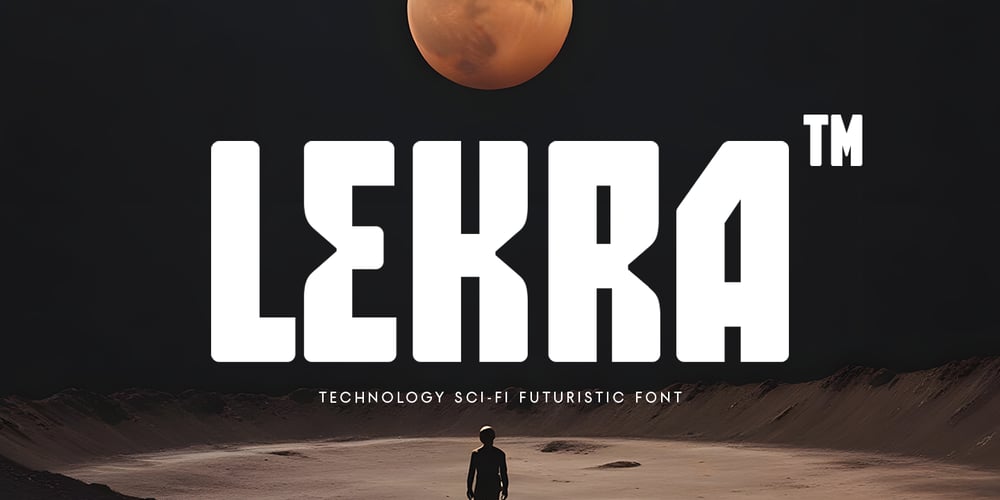
Lekra SS
Lekra SS font
Lekra SS Font Family was designed by Zamroni Hamzah and published by Sensatype Studio. Lekra SS contains 2 styles and family package options. Introducing Lekra SS, a cutting-edge font designed to blend the worlds of technology, sci-fi, and futuristic aesthetics. Perfect for modern projects and innovative designs, Lekra SS brings a sleek and digital touch to your creative work.The Story Behind Lekra SS:Lekra SS was inspired by the rapid advancements in technology and the ever-evolving world of sci-fi. Imagine a future where digital interfaces and sleek designs are the norm, where every element is crafted with precision and style. This font captures that vision, offering a modern and futuristic look for your projects. Lekra SS is ideal for designers who want to push the boundaries and explore new frontiers in their work.Lekra SS Font Features: Modern Design: Contemporary and stylish, perfect for futuristic projects. Sci-fi Aesthetic: Sleek lines and sharp angles that evoke a sense of innovation and advanced technology. Versatile Usage: Ideal for logos, branding, headlines, posters, and tech-related designs. Multiple Formats: Available in 4 formats for all your design needs. High Legibility: Clear and sharp, ensuring your message is communicated effectively. Futuristic Appeal: Combines modern style with a vision of the future. Inspirational Previews: Includes sample designs to spark your creativity. Perfect For: Tech Branding: Create sleek and memorable logos for tech companies and startups. Futuristic Designs: Design eye-catching posters, flyers, and promotional materials with a sci-fi twist. Professional Materials: Develop modern and stylish business cards, letterheads, and office stationery. Marketing and Advertising: Enhance brochures, advertisements, and digital campaigns with a futuristic touch. With Lekra SS, your designs will stand out as innovative and forward-thinking. Whether you’re working on tech branding, futuristic designs, or professional materials, Lekra SS provides the perfect blend of modern aesthetics and sci-fi appeal. Elevate your design projects with Lekra SS and bring a touch of the future to your work.